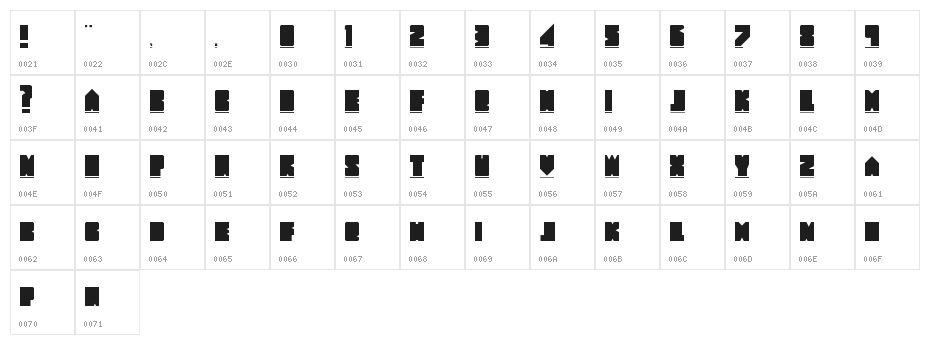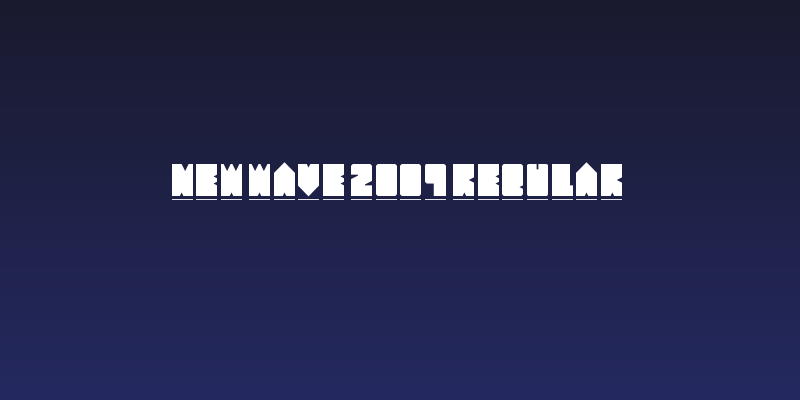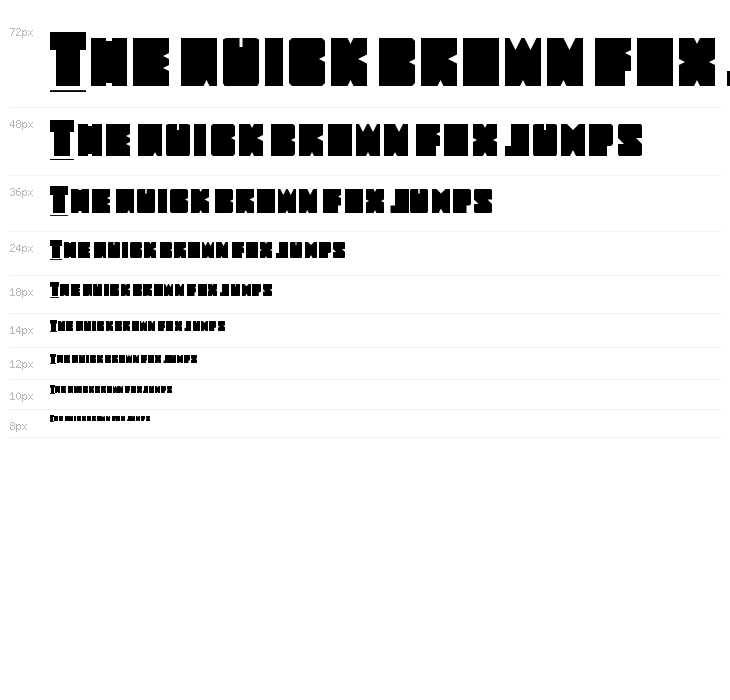
New wave 2009 Regular Font
New wave 2009 Regular Description
This font features a bold, geometric design with a strong, blocky appearance. The characters are constructed with sharp angles and straight lines, giving it a futuristic and industrial feel. The uppercase letters are particularly striking, with a uniform height and width that create a cohesive look. The numbers and special characters maintain this bold aesthetic, ensuring consistency across all elements. The font's design is highly stylized, making it ideal for attention-grabbing headlines or logos that require a modern and edgy touch.
| Proposed Projects | Ideal for use in modern branding, futuristic posters, video game titles, and tech-related projects. |